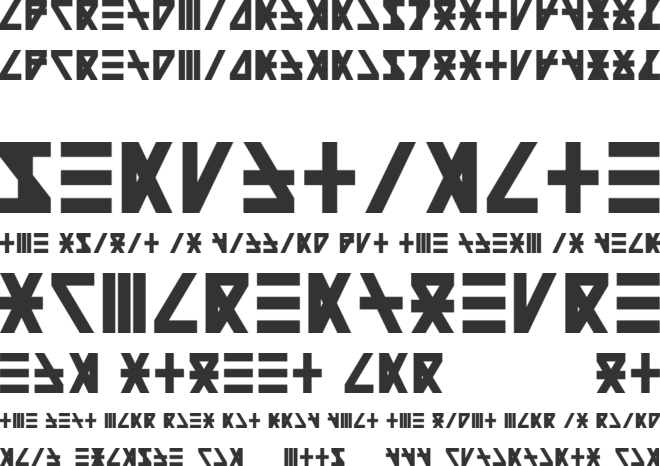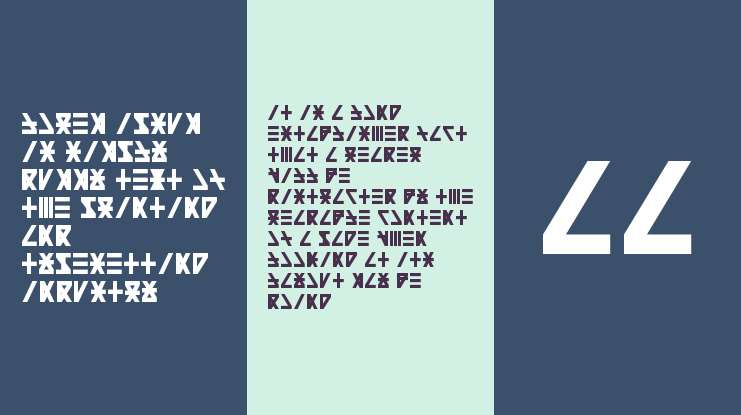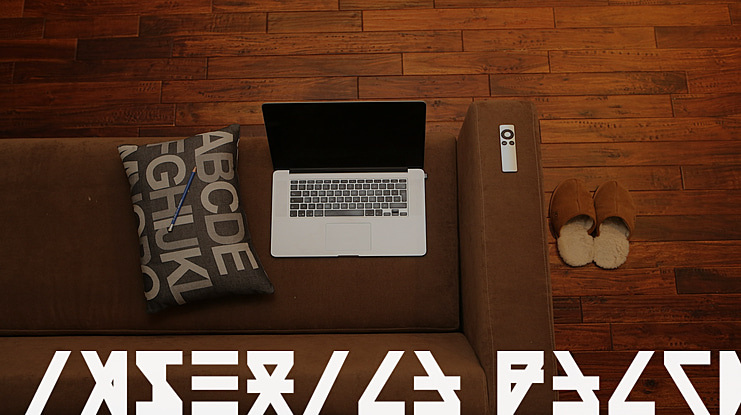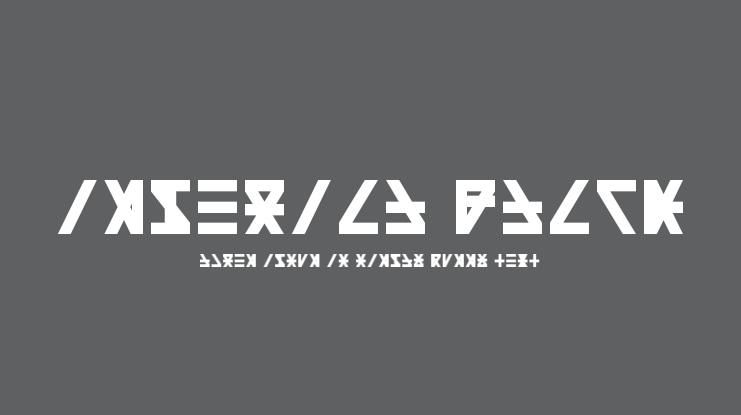
Imperial Black Font
The second typeface in Madeon's Imperial font family sharpens the edges and thickens the lines for a look more fit for bigger sizes.